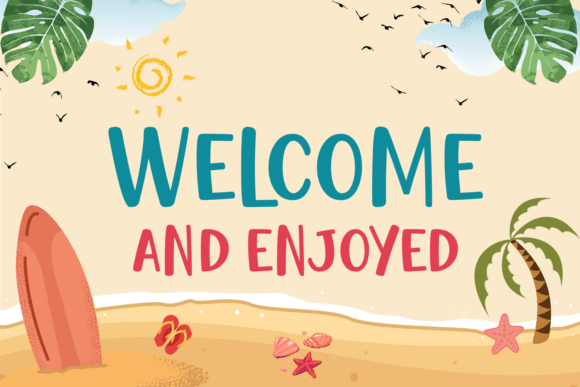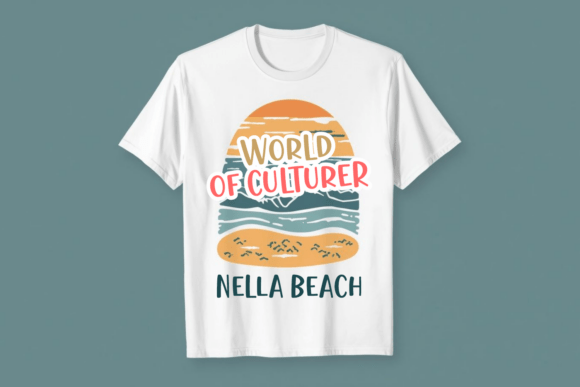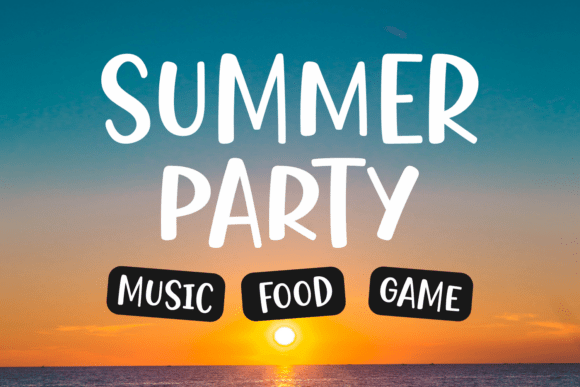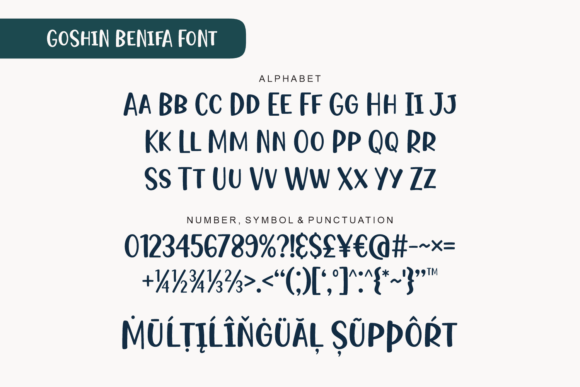
Inject a Dose of Playful Energy into Your Designs with Goshin Benifa Font
Are you tired of using the same old fonts in your designs? Do you want to add a touch of personality and whimsy to your projects? Look no further than Goshin Benifa, a fun uppercase font that’s sure to bring a smile to your face. This handcrafted typeface is perfect for designers and crafters who want to add a dash of playful energy to their work.
The Characteristics of Goshin Benifa
Goshin Benifa is a unique and charming font that features thick, rounded letterforms with a casual, hand-drawn silhouette. The font’s bold presence and slightly irregular rhythm give it a friendly, approachable feel that’s reminiscent of a felt-tip marker. The handcrafted nature of Goshin Benifa makes it perfect for designs that require a personal touch, such as children’s book titles, nursery decor, playful packaging, and vibrant social media headers.
Uses for Goshin Benifa
Goshin Benifa is an incredibly versatile font that can be used in a wide range of design projects. Here are just a few ideas to get you started:
- Children’s Book Titles: Goshin Benifa is perfect for creating eye-catching titles for children’s books. Its playful, energetic vibe is sure to appeal to kids and parents alike.
- Nursery Decor: Add a touch of whimsy to nursery decor with Goshin Benifa. The font’s cheerful personality makes it perfect for wall art, decals, and other decorative elements.
- Playful Packaging: Goshin Benifa is a great choice for packaging design that needs to stand out on store shelves. Its bold, playful presence is sure to grab attention and make your product more memorable.
- Vibrant Social Media Headers: Add a pop of personality to your social media headers with Goshin Benifa. The font’s energetic vibe is perfect for creating engaging, shareable content.
- Standout Logos: Goshin Benifa is a great choice for creating logos for youth-oriented brands. Its playful, handcrafted nature makes it perfect for businesses that want to appeal to a younger audience.
- Fun Greeting Cards: Add a touch of personality to your greeting cards with Goshin Benifa. The font’s cheerful vibe makes it perfect for creating fun, memorable cards for any occasion.
The Benefits of Using Goshin Benifa
So why choose Goshin Benifa for your design projects? Here are just a few benefits of using this fun and playful font:
- Unique Personality: Goshin Benifa has a unique, handcrafted personality that’s sure to set your designs apart from the crowd.
- Highly Versatile: Goshin Benifa can be used in a wide range of design projects, from children’s book titles to social media headers.
- Easy to Read: Despite its playful nature, Goshin Benifa is incredibly easy to read, making it perfect for designs that need to communicate a message.
- Optimistic Charm: Goshin Benifa has an optimistic, cheerful vibe that’s sure to bring a smile to your face.
Tips for Using Goshin Benifa
Here are a few tips for getting the most out of Goshin Benifa:
- Use it in Large Sizes: Goshin Benifa is perfect for large, bold headlines. Use it in sizes 24pt or larger to really make an impact.
- Experiment with Colors: Goshin Benifa looks great in a wide range of colors. Experiment with different hues to find the perfect match for your design.
- Pair it with Other Fonts: Goshin Benifa can be paired with a wide range of fonts to create interesting, dynamic designs. Try pairing it with a clean sans-serif font for a bold, modern look.
Goshin Benifa is a fun and playful font that’s perfect for designers and crafters who want to add a touch of personality to their work. Its unique, handcrafted nature makes it perfect for a wide range of design projects, from children’s book titles to social media headers. With its bold presence, slightly irregular rhythm, and optimistic charm, Goshin Benifa is sure to bring a smile to your face and a touch of whimsy to your designs.